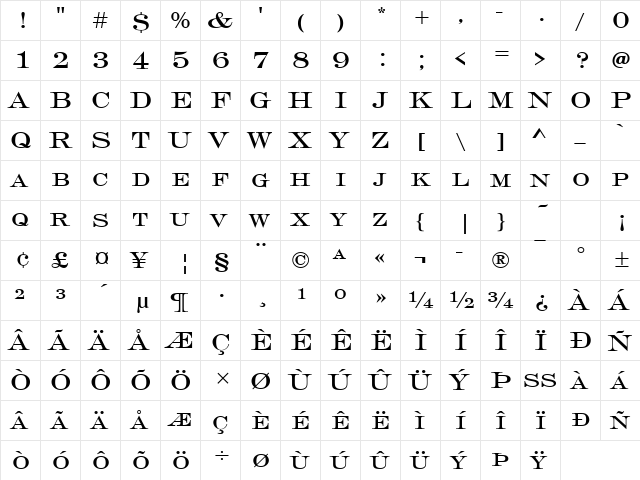
EngraversD Regular Font Preview
EngraversD Regular
Design Context for EngraversD Typeface
EngraversD takes a measured approach to typography — its balanced proportions and neutral character make it a reliable workhorse for both digital and print work.